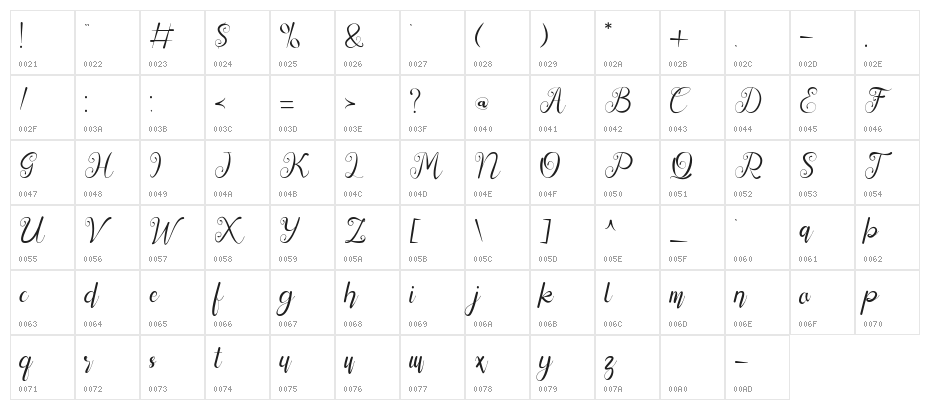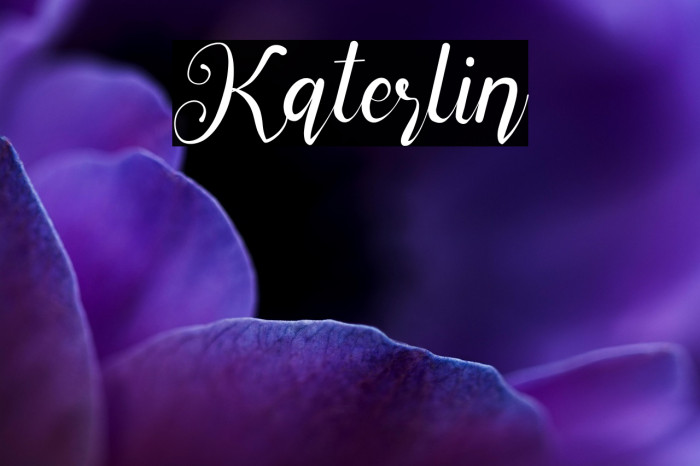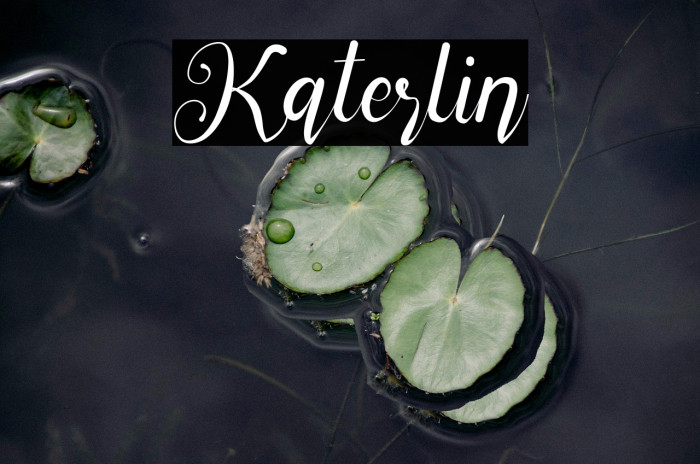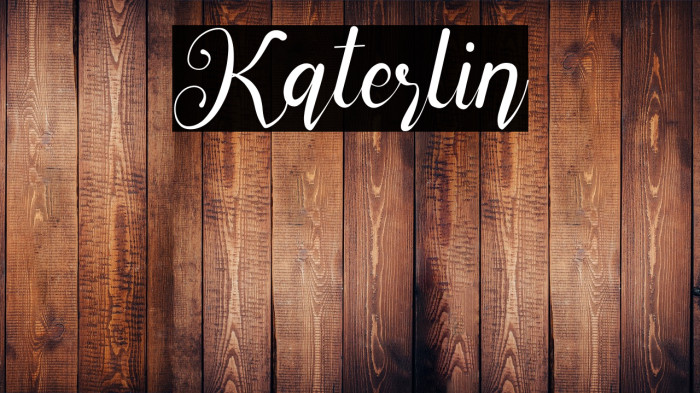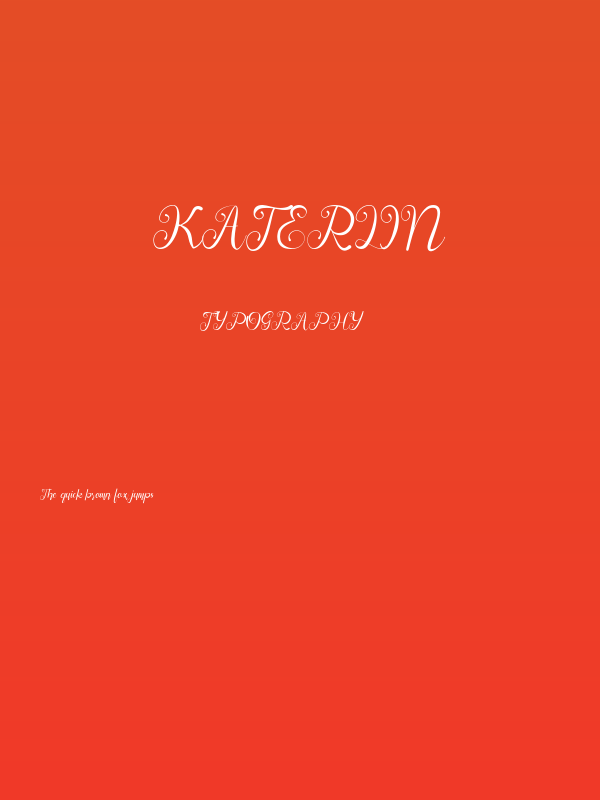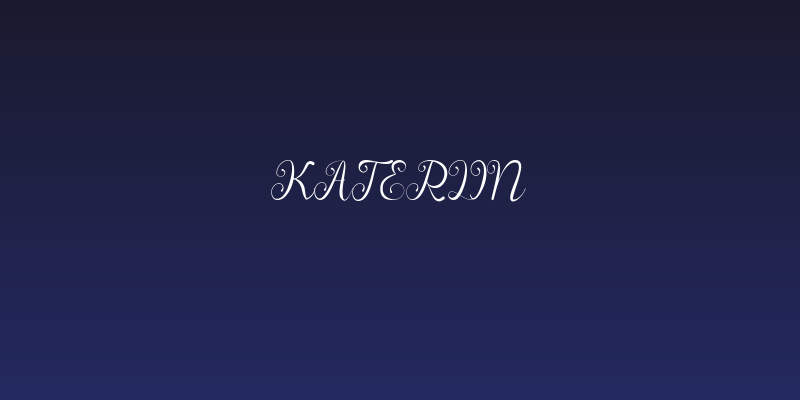
Katerlin Font
Katerlin Description
This elegant script font features beautifully flowing curves and intricate swirls, giving it a sophisticated and artistic appearance. Each letter is crafted with a sense of fluidity and grace, making it ideal for projects that require a touch of elegance and style. The uppercase letters are particularly ornate, with loops and flourishes that add a decorative element. The lowercase letters maintain a consistent style, with smooth connections that enhance readability while retaining the font's artistic flair. The numerals and special characters are designed to complement the overall aesthetic, ensuring a cohesive look across all text elements.